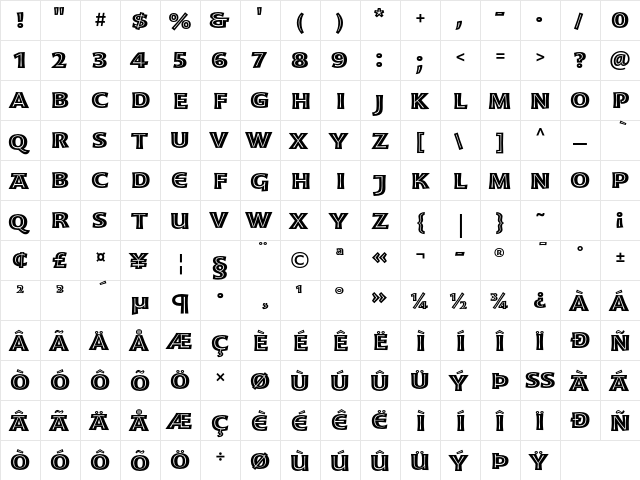
Moonglow Bold Extended Font Preview
Moonglow Bold Extended
Moonglow Bold Extended Font Details
| Style | Bold Extended |
| Designer | Michael Harvey |
Design Context for Moonglow Typeface
Moonglow is a composed and adaptable typeface that performs quietly and consistently across a wide range of design contexts. Its bold stroke weight gives it real presence on the page.